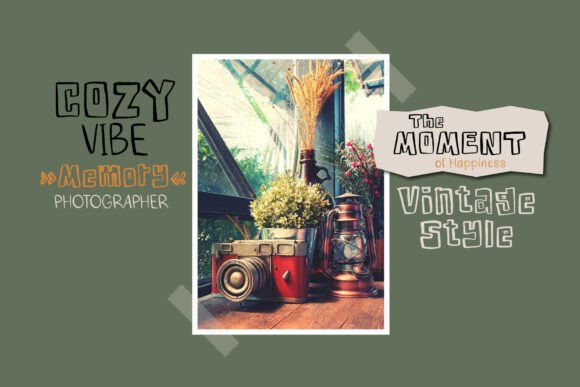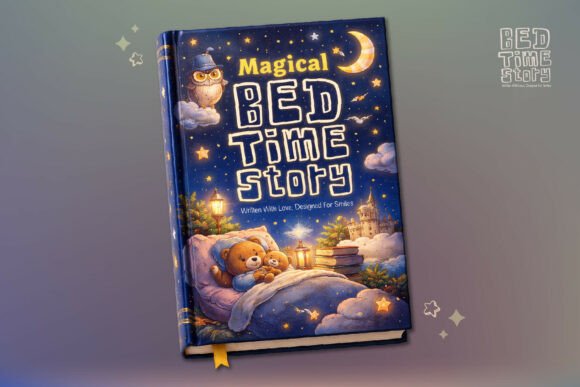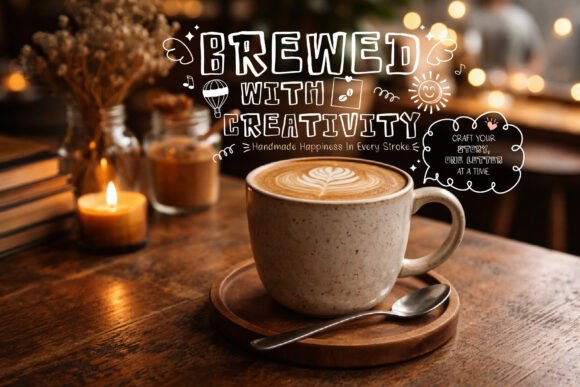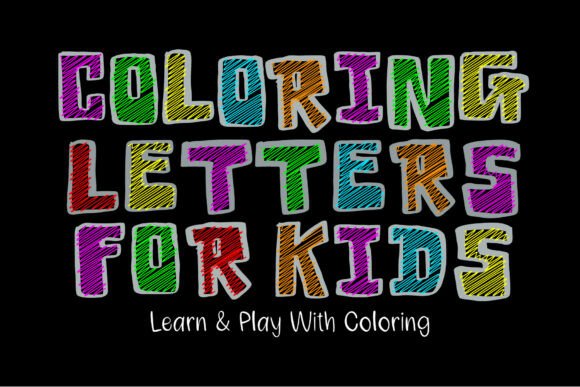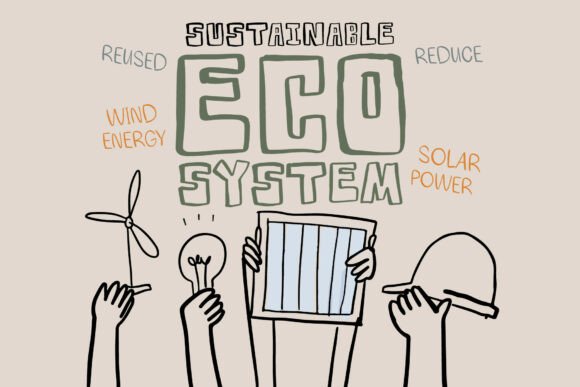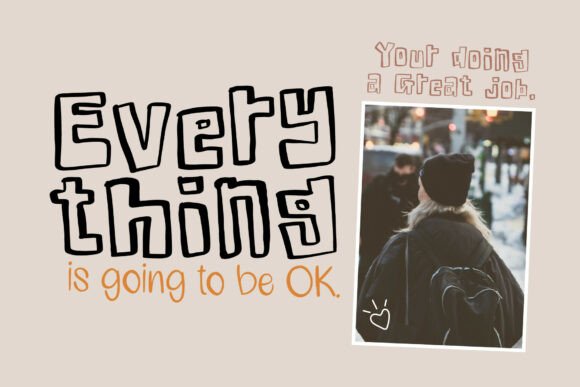
Funstroke Font: Unleash Creativity with this Playful Handwritten Display and Script Font Combination
Are you tired of using the same old fonts in your designs? Do you want to add a touch of personality and creativity to your work? Look no further than Funstroke Font, a playful handwritten display and script font combination that’s sure to bring joy and excitement to your designs. In this article, we’ll dive into the features and benefits of Funstroke Font, and explore how you can use it to take your designs to the next level.
What is Funstroke Font?
Funstroke Font is a unique duo that combines a bold sketch-style outline display font with a smooth handwritten script font. This powerful combination gives you the flexibility to mix and match styles to create a more dynamic and expressive look. The bold outline font is perfect for creating eye-catching titles and headings, while the smooth script font adds a touch of elegance and sophistication to your designs.
Key Features of Funstroke Font
- Playful Handwritten Style: Funstroke Font features a playful handwritten style that’s perfect for creating fun and lively designs. The bold sketch-style strokes and friendly handwritten feel make it ideal for kids’ projects, cheerful design work, and creative branding.
- Bold Sketch-Style Strokes: The bold outline font in Funstroke Duo features sketch-style strokes that add a touch of energy and excitement to your designs. This makes it perfect for creating eye-catching titles and headings that grab attention.
- Smooth Handwritten Script: The smooth script font in Funstroke Duo adds a touch of elegance and sophistication to your designs. It’s perfect for creating flowing text and adding a personal touch to your work.
- Flexible and Versatile: Funstroke Font is incredibly flexible and versatile, making it perfect for a wide range of design applications. Whether you’re designing for children, social media, packaging, or creative projects, Funstroke adds a fun and lively touch that makes your design stand out.
Benefits of Using Funstroke Font
So why should you choose Funstroke Font for your designs? Here are just a few benefits of using this amazing font combination:
- Adds Personality and Creativity: Funstroke Font adds a touch of personality and creativity to your designs, making them stand out from the crowd.
- Perfect for Kids’ Projects: The playful handwritten style and bold sketch-style strokes make Funstroke Font perfect for kids’ projects, such as children’s books, educational materials, and kids’ party invitations.
- Ideal for Social Media and Packaging: Funstroke Font is also ideal for social media graphics, packaging design, and other applications where you want to make a bold and eye-catching statement.
- Easy to Use: Funstroke Font is incredibly easy to use, even for designers who are new to working with handwritten fonts.
How to Use Funstroke Font in Your Designs
So how can you use Funstroke Font in your designs? Here are a few ideas to get you started:
- Create Eye-Catching Titles and Headings: Use the bold outline font to create eye-catching titles and headings that grab attention.
- Add a Personal Touch: Use the smooth script font to add a personal touch to your designs, such as in invitations, greeting cards, and other correspondence.
- Mix and Match Styles: Experiment with mixing and matching the bold outline font and smooth script font to create a more dynamic and expressive look.
- Use in Kids’ Projects: Use Funstroke Font in kids’ projects, such as children’s books, educational materials, and kids’ party invitations.
| Font Name | Funstroke Font |
| Author | BB Type Studios |
In conclusion, Funstroke Font is a playful handwritten display and script font combination that’s perfect for designers and crafters who want to add a touch of personality and creativity to their work. With its bold sketch-style strokes and friendly handwritten feel, Funstroke is ideal for creating eye-catching titles, fun branding, kids’ projects, and cheerful design work. Whether you’re designing for children, social media, packaging, or creative projects, Funstroke adds a fun and lively touch that makes your design stand out. So why wait? Try Funstroke Font today and unleash your creativity!